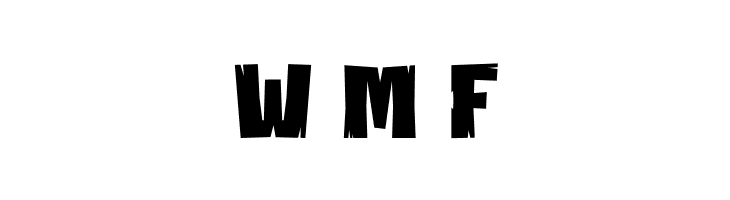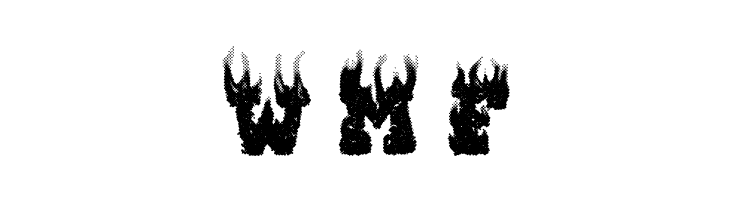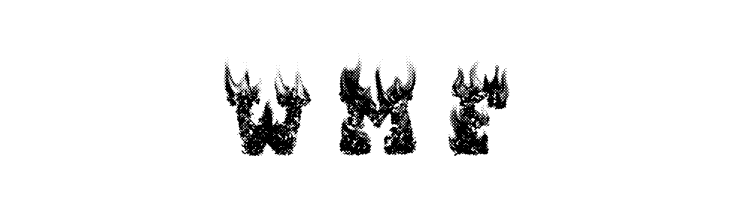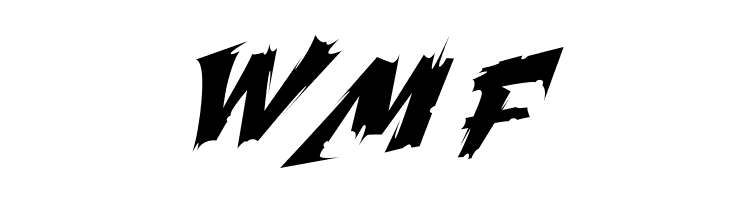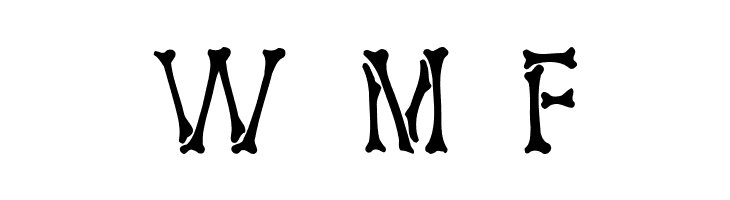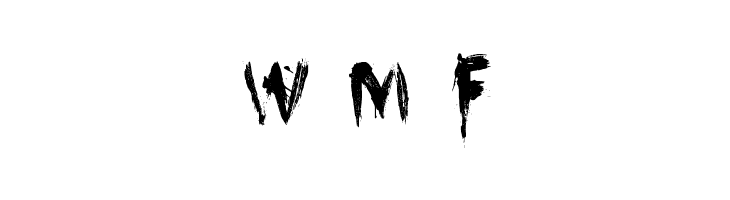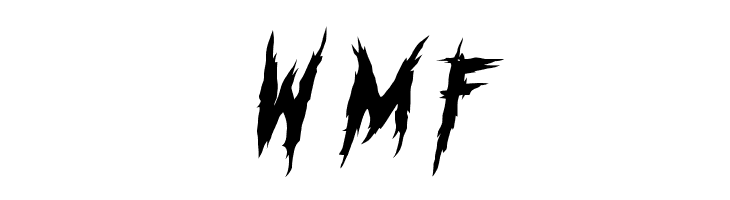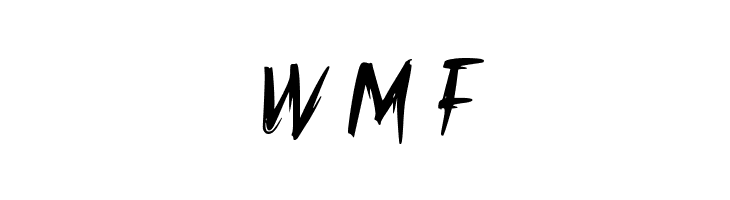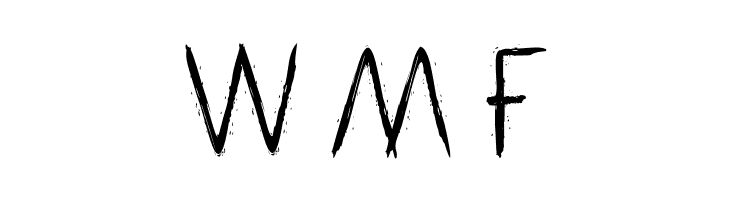
A bold, jagged font with a dynamic, hand-drawn style.
A bold, flame-themed decorative font with textured, uppercase letters.
A bold, flame-inspired font with intricate detailing and a dramatic appearance.
A bold, jagged, and energetic font with a graffiti-like style.
A bold, jagged font with sharp, angular letterforms for dramatic impact.
A bold, distressed brushstroke font with an edgy, dramatic style.
A bold, aggressive font with sharp, jagged edges, perfect for impactful designs.
A gothic-inspired font with sharp, angular edges and dramatic serifs.
A dynamic, fiery font with sharp, jagged edges and bold strokes.
A dramatic, edgy font with a rough, hand-drawn appearance.